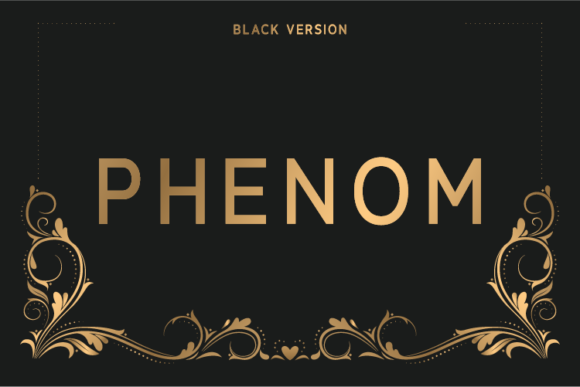
Phenom Black Font
Dive into the world of typography with Phenom Black Font, a sans serif marvel designed by Nan Design. Its elegant curves and sharp angles intertwine to create a visual masterpiece sure to captivate your audience and leave an everlasting impression on your creative projects.
Phenom Black's regular and outline versions offer endless possibilities that will bring your designs to life. Whether you seek a sophisticated look for your branding, a playful charm for your invitations, or a distinctive touch to your web designs, Phenom Black seamlessly adapts, transforming your words into works of art.
Unlike ordinary fonts, Phenom Black possesses a magical ability to transform your designs into captivating stories. Its stunning contrast between flowing lines and sharp edges creates a visual tension that commands attention, stirring emotions and inviting viewers deeper into your message. With Phenom Black, your words become more than just letters; they become an experience.
Unleash your creativity and explore the vast potential of Phenom Black. From logos that exude authority to social media posts that radiate personality, from eye-catching headlines that demand attention to wedding invitations that evoke romance, Phenom Black is the ultimate font for those seeking to make a lasting impact with their designs.